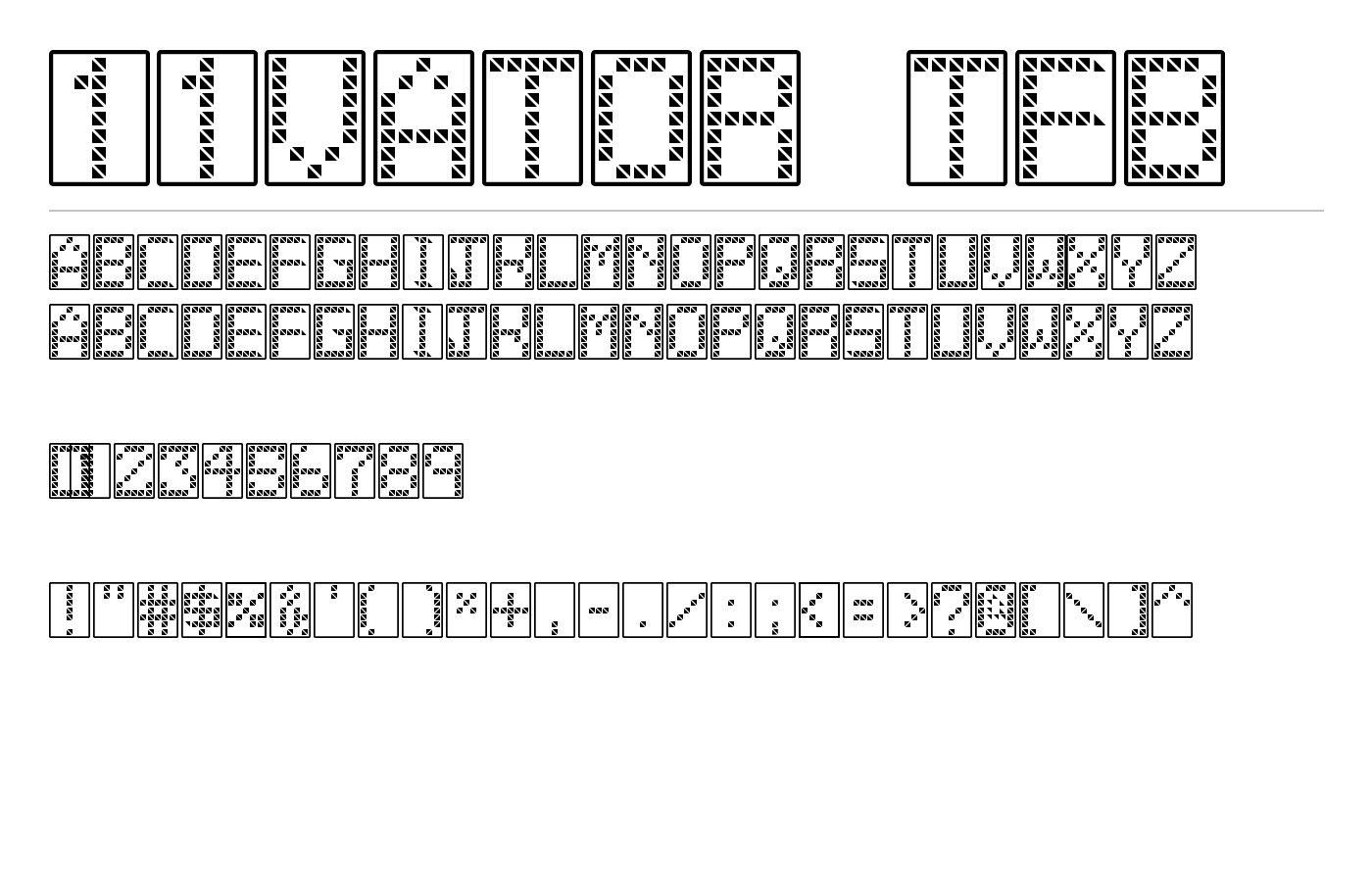
11vator tfb is a highly geometric, sans serif display font that features bold, boxy letterforms filled with a repeated triangular pattern. Its fixed-width style and uniform stroke contribute to a modern, tech-inspired aesthetic, making it perfect for eye-catching headlines, digital-themed branding, or futuristic graphic projects where a striking, modular look is desired. This font works best at larger sizes where its unique patterning can be fully appreciated.
11vator tfb Font
About 11vator tfb Font
| Font family | 11vator tfb Font |
| Designer | kaiserzharkhan |